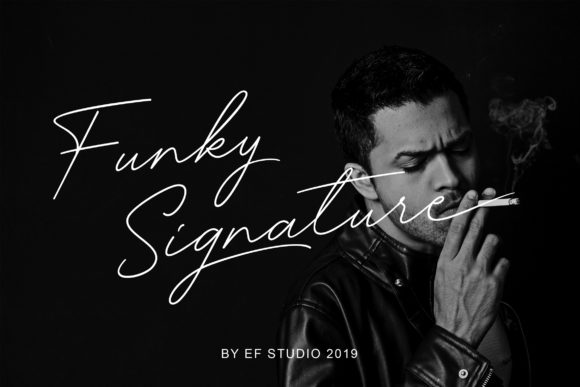
Funky Signature
Funky Signature is a handwritten signature script that stands out for its natural flow and classic 80's style. It is a versatile font that can add a unique touch to any design project, from logos to invitations, posters, and more. The smooth curves and elegant lines of this font make it perfect for creating a sophisticated and personalized look. Whether you are designing for a wedding, a restaurant, or a fashion brand, Funky Signature can help you achieve the perfect balance between elegance and creativity. With its wide range of glyphs and ligatures, this font offers endless possibilities for customization, allowing you to create a truly unique and memorable design. So why settle for a generic font when you can add a touch of personality and style to your project with Funky Signature?